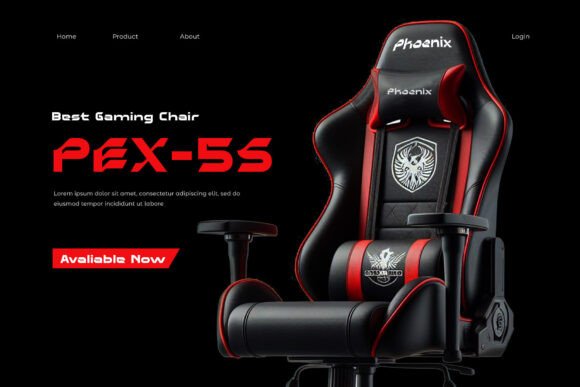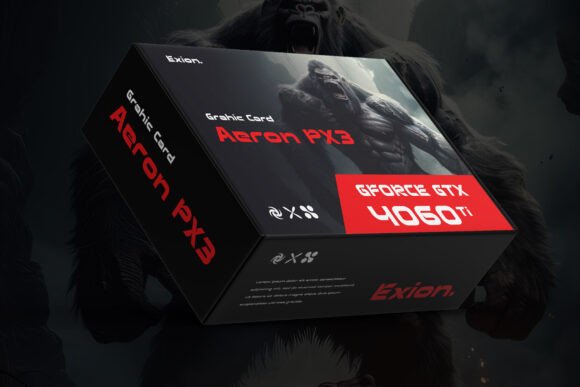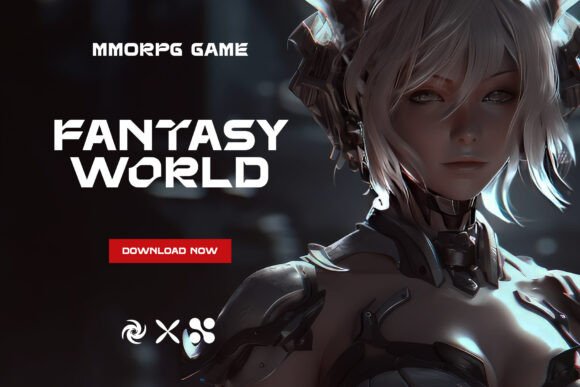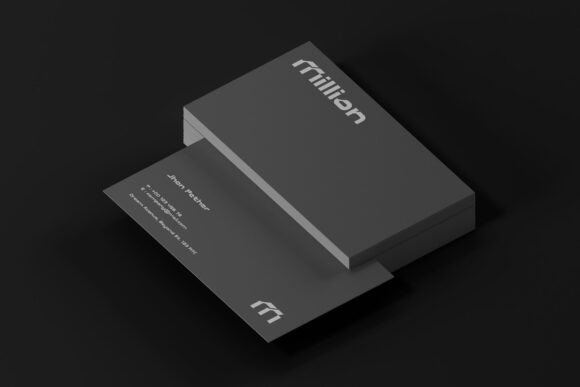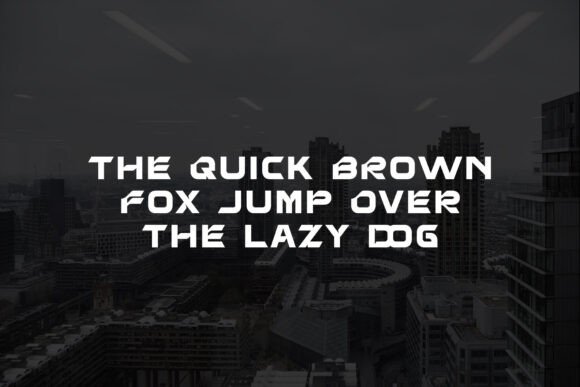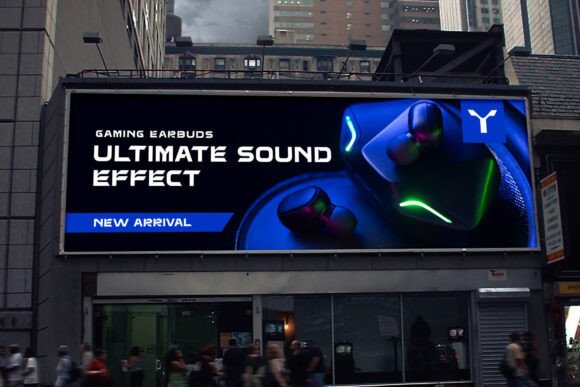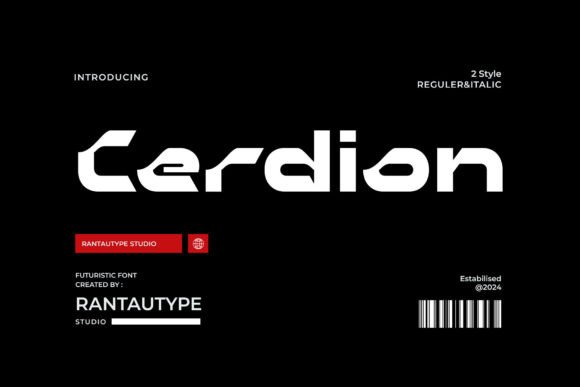
Cerdion Font: Elevate Your Designs with a Futuristic Twist
In the realm of typography, fonts play a pivotal role in shaping the visual identity of a design project. With the ever-evolving landscape of modern technology, designers are constantly on the lookout for typefaces that can capture the essence of innovation and futurism. This is where the Cerdion font comes into play – a futuristic font that boasts a unique shape, inspired by the rapid advancements in technology.
The Genesis of Cerdion Font
Cerdion is not just another font; it’s a design statement that reflects the dynamic and fast-paced evolution of modern technology. Its creation was driven by the need to encapsulate the futuristic vibe that is so prevalent in today’s digital age. Whether you’re working on a logo, advertisement, or any other design project, Cerdion offers a distinctive touch that can set your work apart from the rest.
One of the standout features of the Cerdion font is its versatility. It’s a highly adaptable typeface that can be seamlessly integrated into a wide array of design projects. Here are some of the areas where Cerdion truly shines:
- Logos: Create memorable and impactful logos that embody the futuristic spirit of your brand.
- Advertisements: Grab attention with bold and eye-catching ad copy that stands out in a crowded marketplace.
- Stationery: Elevate your business correspondence with a touch of modern sophistication.
- Branding: Develop a cohesive brand identity that resonates with tech-savvy audiences.
- Displays and Magazines: Add a futuristic flair to your display ads and magazine layouts.
- Invitations: Send out invitations that are out of this world, perfect for tech-themed events or product launches.
- Corporate Branding: Reinforce your company’s commitment to innovation with a font that screams futurism.
- Product Design: Incorporate Cerdion into your product design for a sleek and modern look.
- Labels and Business Projects: From product labels to business presentations, Cerdion brings a cohesive and futuristic feel.
Why Choose Cerdion Font?
Choosing Cerdion for your design projects comes with a multitude of benefits:
- Unique Aesthetic: Cerdion’s unique shape sets it apart from more traditional fonts, ensuring your designs capture the desired attention.
- Futuristic Appeal: Instantly convey a sense of innovation and forward-thinking with a font that embodies the spirit of modern technology.
- High Readability: Despite its futuristic design, Cerdion maintains high readability, making it suitable for both headlines and body text.
- Customization: Cerdion can be customized to fit your project’s specific needs, allowing for a truly personalized design approach.
Tips for Using Cerdion Font Effectively
To maximize the impact of Cerdion in your designs, consider the following tips:
- Mix and Match: Combine Cerdion with complementary fonts to create visual interest and hierarchy in your designs.
- Play with Sizes: Utilize different font sizes to emphasize certain elements and guide the viewer’s eye through your design.
- Color Matters: Choose colors that align with your brand’s identity and the mood you wish to convey.
- Experiment with Styles: If available, experiment with different styles of Cerdion, such as bold, italic, or condensed versions, to add depth to your design.
Cerdion font is more than just a typeface – it’s a design tool that can transform your projects with its futuristic charm. Whether you’re a designer, craftsperson, or simply someone looking to add a touch of modernity to your work, Cerdion is an excellent choice. Its versatility, unique aesthetic, and emphasis on futurism make it an invaluable asset in the world of design. So, why settle for ordinary when you can create something truly extraordinary with Cerdion?